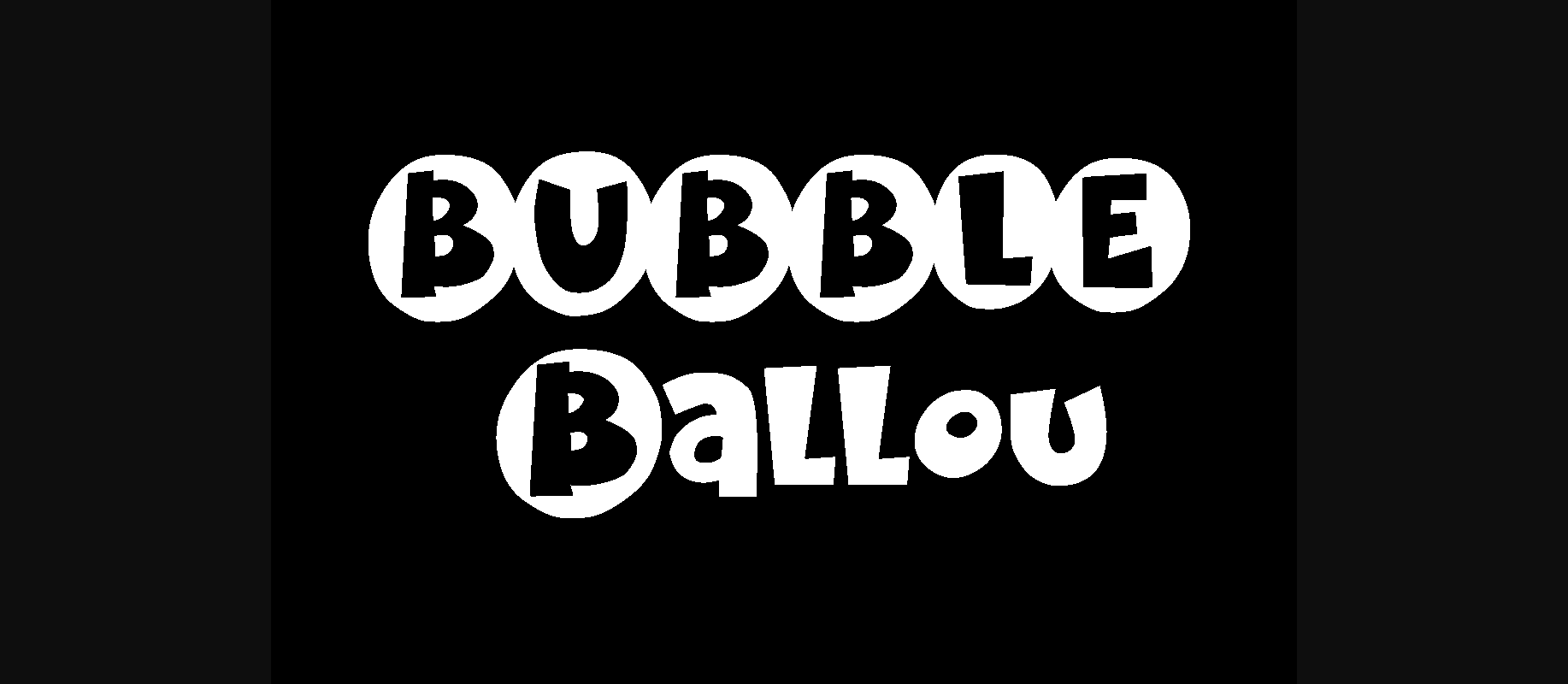
K26 Bubble Ballou Font
Bubble Ballou is a fun loving font with a slightly retro appeal. With bold lettering wrapped in bubble ornamentation, Bubble Ballou is great font to have on hand.